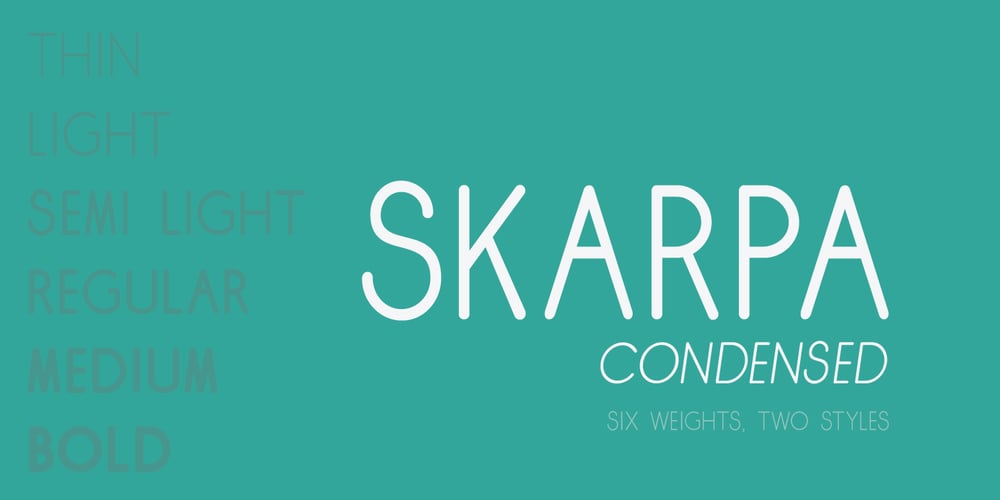
Skarpa Condensed Font Family was designed by Aga Silva and published by Aga Silva. Skarpa Condensed contains 12 styles and family package options. This is condensed and more visually compact version of Skarpa font. All kerning has been thoroughly revised and manually adjusted.The font is based on geometric forms devoid of excessive flourishing.Would suit modern designs either in fashion, technology or laboratory setting. Would look good on door plaques in pharmacy or simple drawer plaques – especially Medium or Bold specimen. Lighter specimens would look good in leaflet & magazine print (see presented posters).